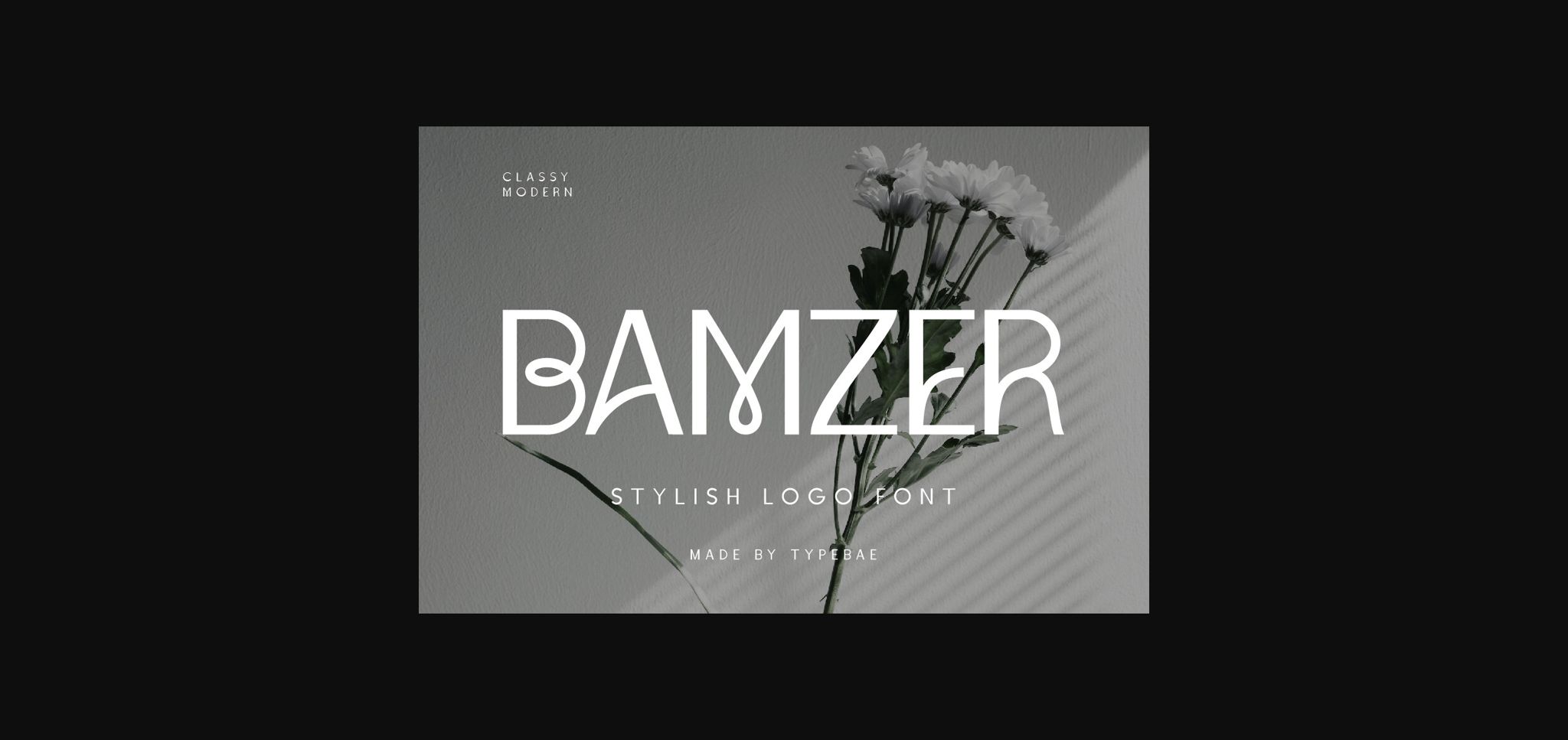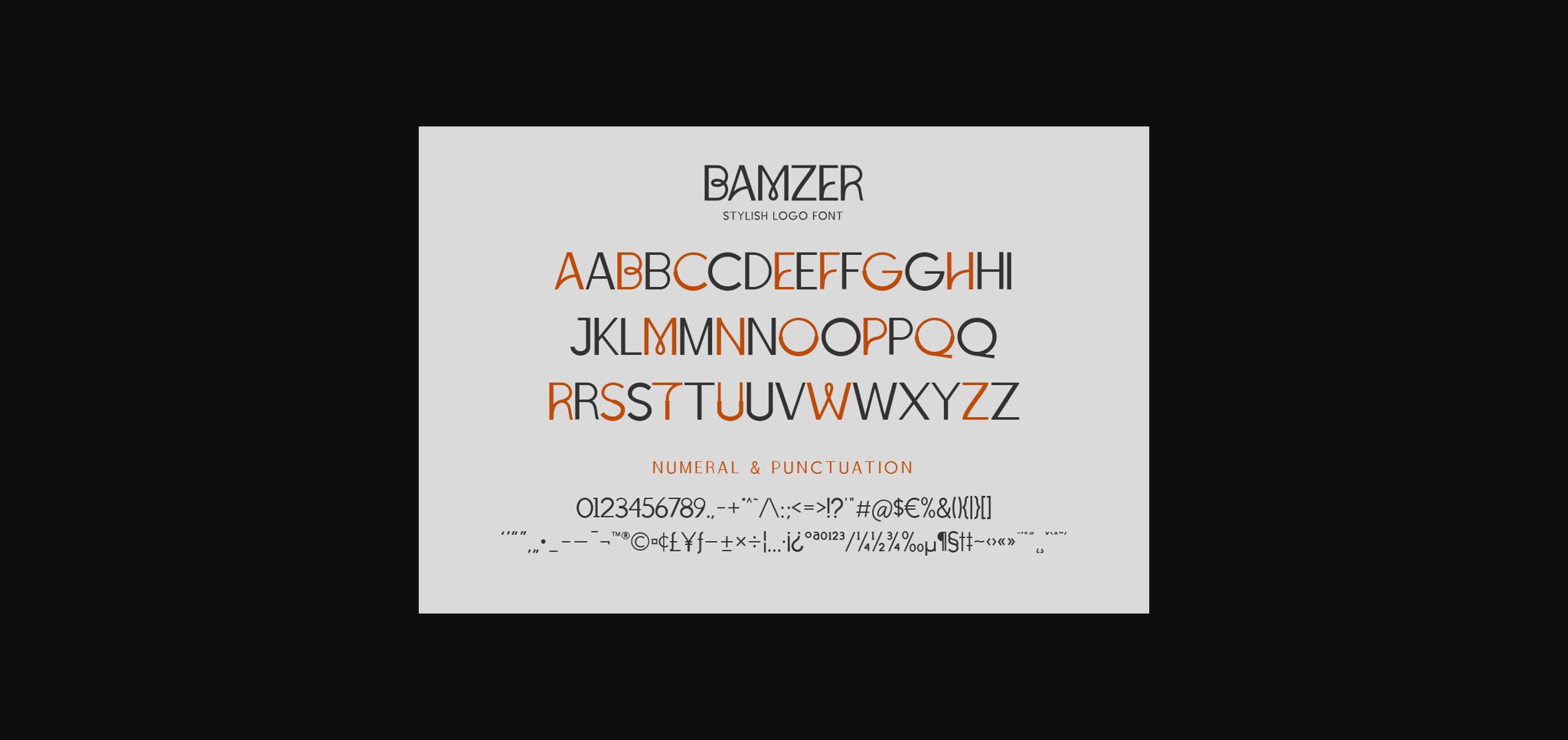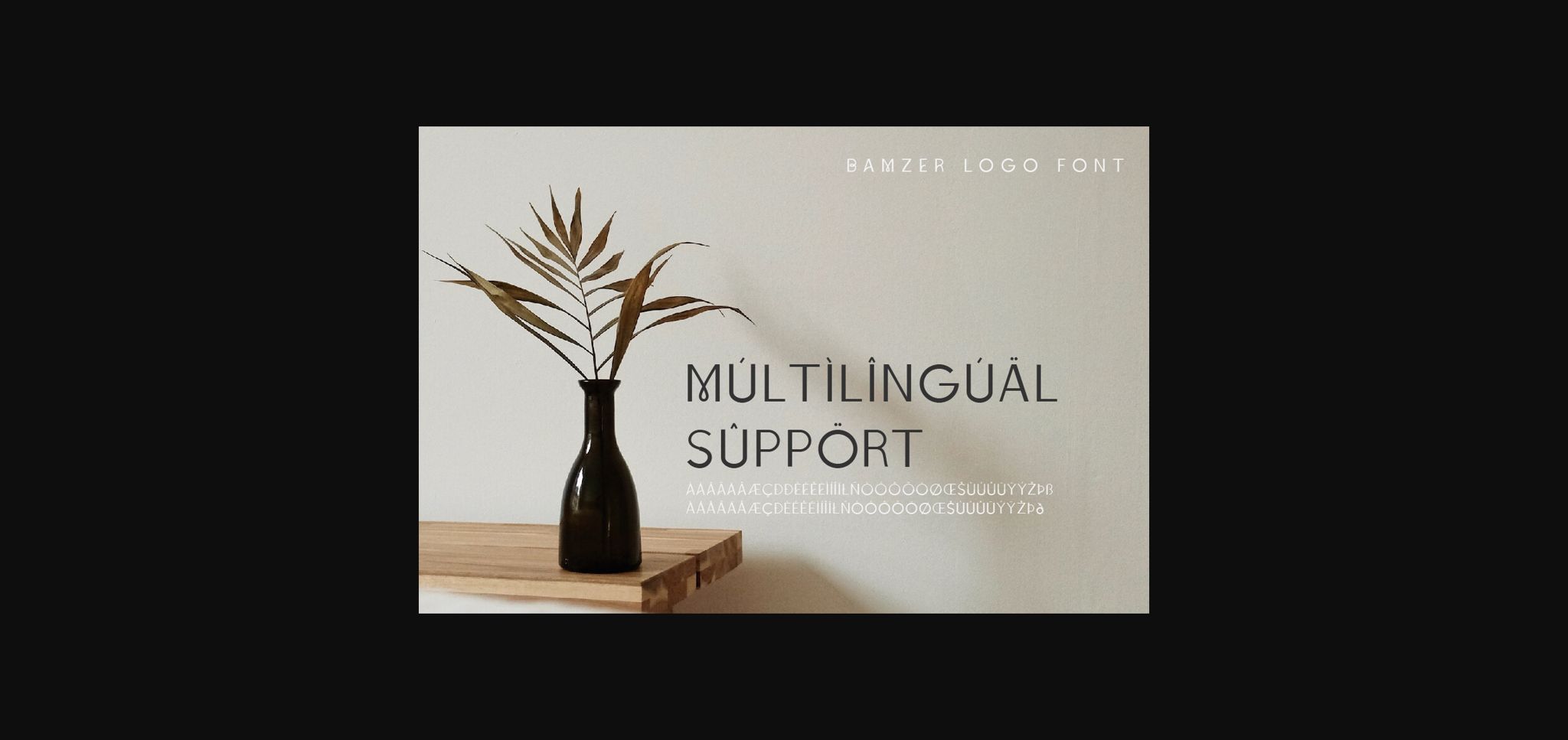
About Bamzer Font
Bamzer is an alluring sans serif logo font that captivates with its distinctive curved design. Its sleek and modern appearance exudes elegance and sophistication, making it a perfect choice for brands that aim to stand out with a touch of flair. Whether it’s for a fashion label, tech startup, or any brand seeking a memorable identity, Bamzer unique curve sets it apart as a font that effortlessly blends innovation with timeless appeal.